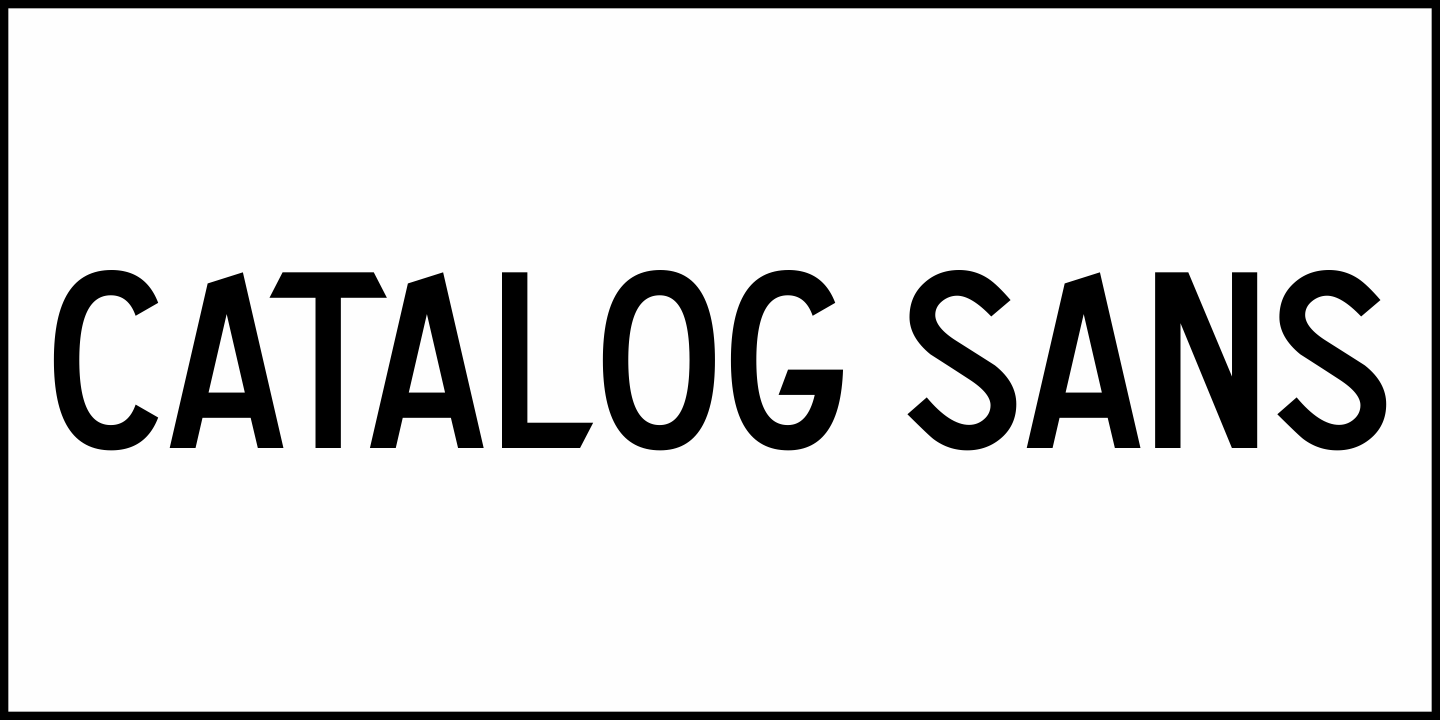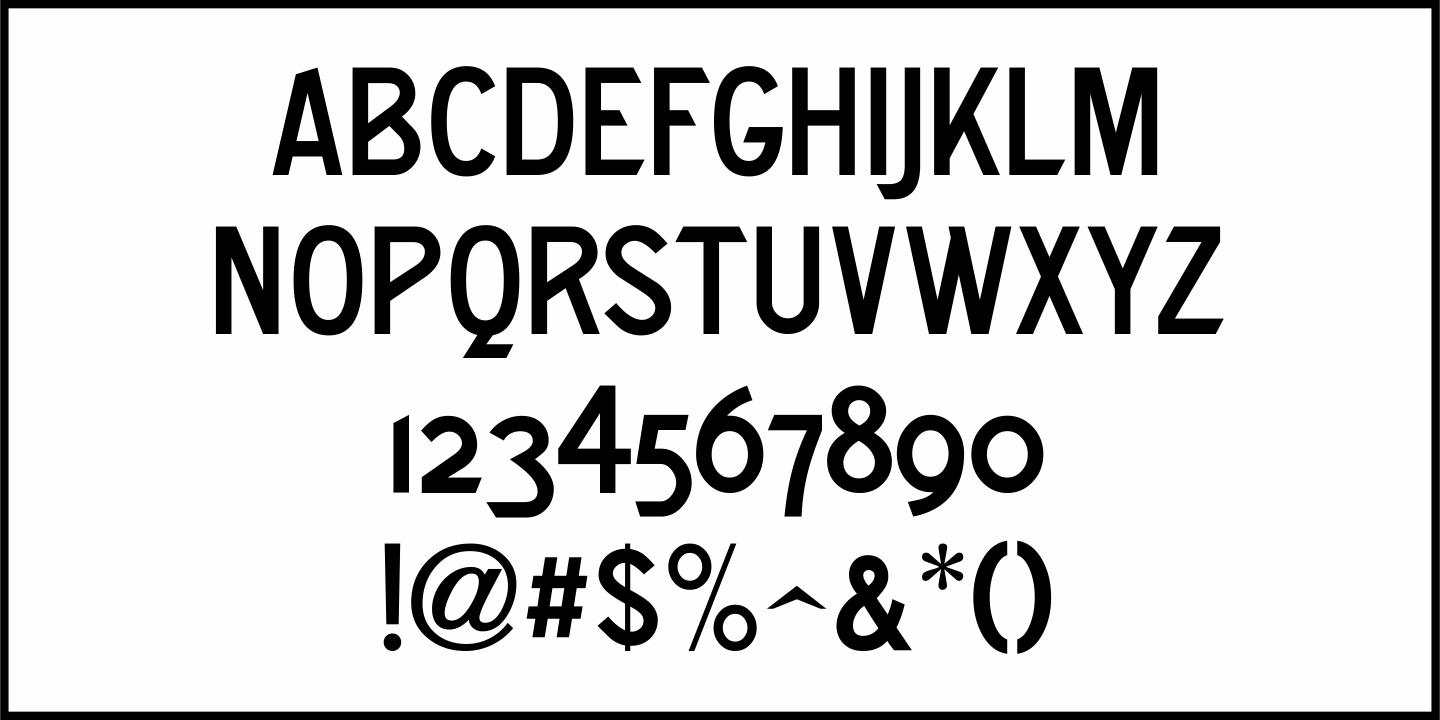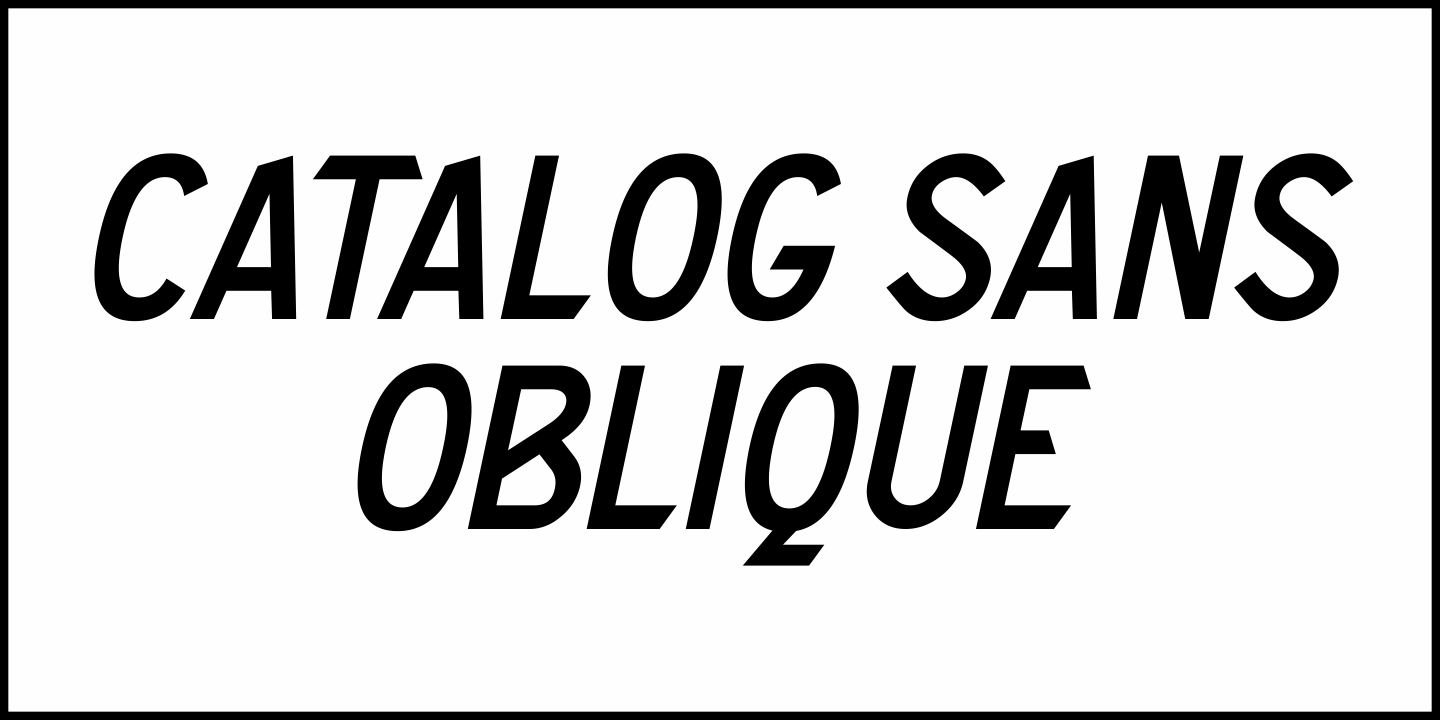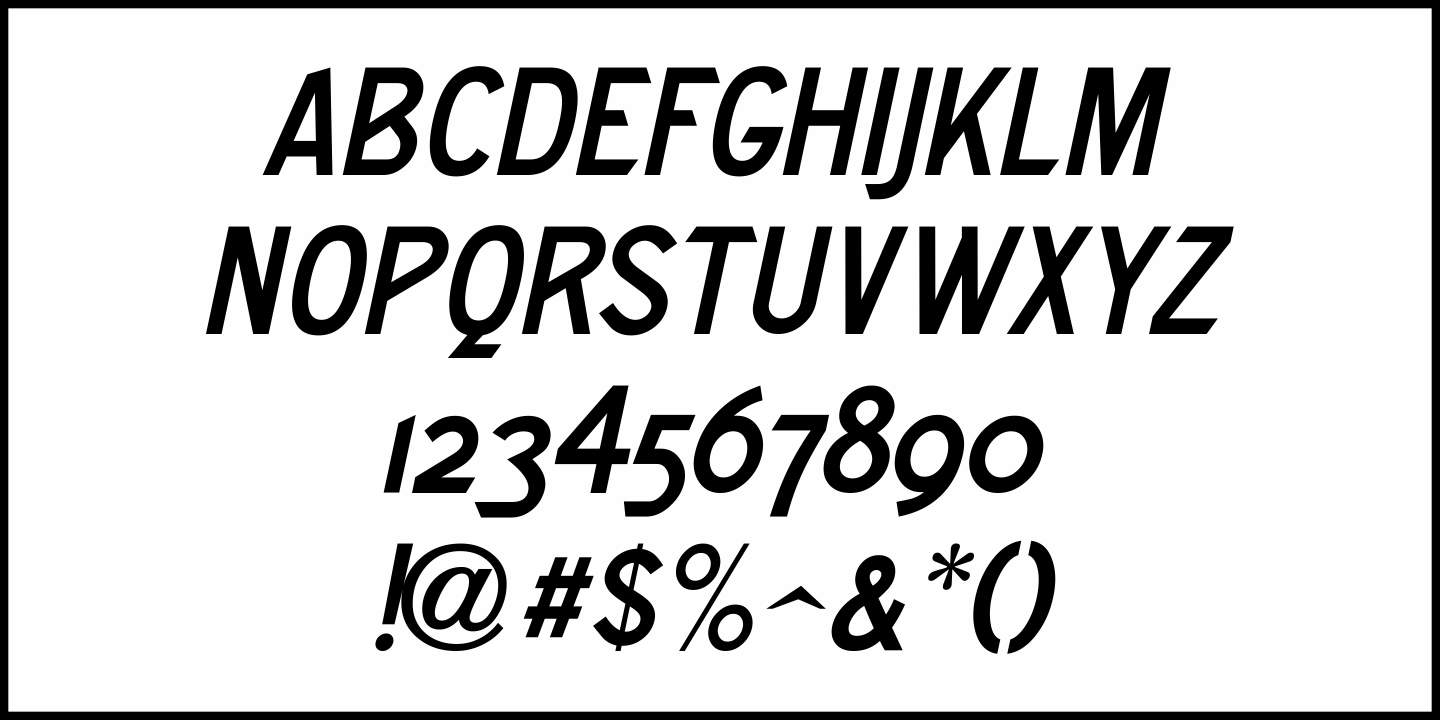
Catalog Sans
Based on Ronaldson Gothic (named after James Ronaldson; who owned the first type foundry located in the United States), Catalog Sans JNL is a classic Victorian-era Grotesk sans serfif and is available in both regular and oblique versions.